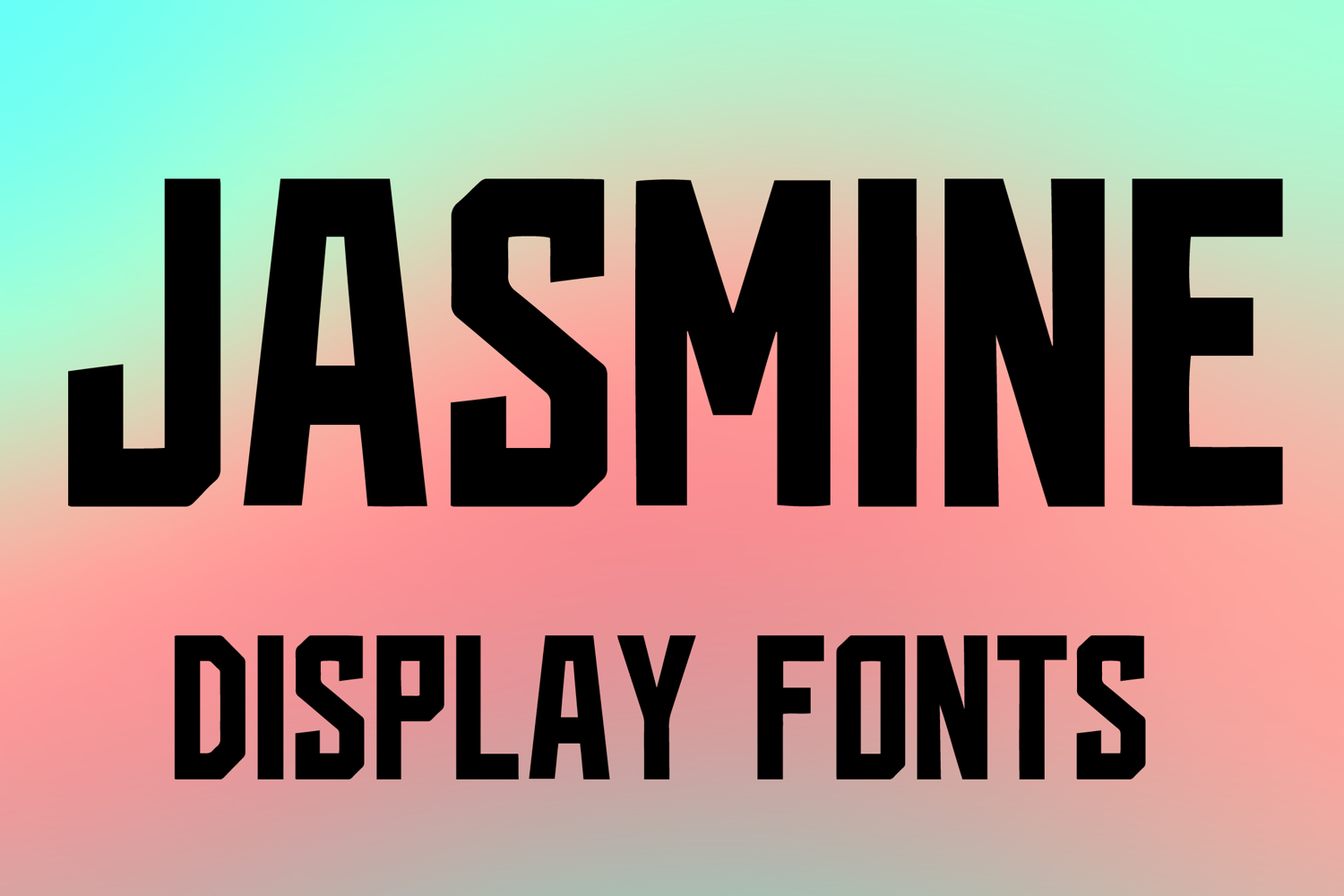
JASMINE
JASMINE is a bold geometric display font with a strong modern style and confident industrial character. Its uppercase letterforms feature sharp angular cuts, solid block-like shapes, and a clean structured design that creates a powerful, striking, and eye-catching look. Designed with uppercase letters A–Z and numbers 0–9, JASMINE is perfect for branding, posters, packaging, logos, headlines, sports designs, and creative projects that need a bold and memorable statement.